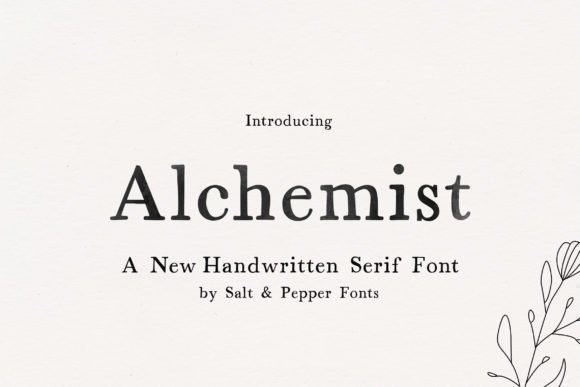
The Art of Alchemy: Unveiling the Magic of Handwritten Serif Fonts
As a designer, there’s nothing quite like the thrill of bringing a creative idea to life. Perhaps it’s a late-night brainstorming session, or a sudden spark of inspiration while scrolling through social media. Whatever the trigger, it’s that moment of clarity when everything clicks into place, and you know you’ve stumbled upon something special. For me, that moment came when I discovered the enchanting Alchemist Font – a beautiful, handwritten serif font that’s about to revolutionize the way we design.
Alchemist Font is more than just a font – it’s a versatile tool that can elevate your wedding designs, quotes, save the date cards, and greeting cards to new heights. Its warm, elegant feel makes it perfect for magazines, clothing, and even logo designs. Whether you’re a seasoned designer or just starting out, the Alchemist Font is an invaluable addition to your creative arsenal.
Alchemist Font Key Features
- Font Family: Alchemist, Alchemist Inline, Alchemist Outline
- Font Size: Available in various font sizes, including 400, 500, 600, 700, 800
- Resolution: Supports high-resolution displays with scalable vector graphics (SVG) technology
- Unique Characteristics: Includes intricate illustrations and ornaments, making it suitable for luxury and high-end designs
- Language Support: Supports a wide range of languages, including Latin, Greek, Cyrillic, and more
Alchemist Font Review
As a designer, I was excited to dive into the Alchemist Font and see what it had to offer. Overall, I found it to be a solid, yet somewhat unremarkable addition to my font library. ✨ Here are some of its strengths and weaknesses.
- The Alchemist Font has a clear, readable design that works well in both body text and headings. ✨
- It’s highly versatile, suitable for a wide range of projects and applications, from digital interfaces to print materials. ✨
- The font’s unique blend of modern and vintage elements gives it a distinctive feel that can add character to any design. ✨
- The Alchemist Font may not be the best choice for projects that require a lot of customizability or extensive font pairing options. ⚠️
- The font’s overall style may be too eclectic for some designers’ tastes, which could limit its appeal in certain design contexts. ⚠️
While the Alchemist Font isn’t a game-changer, it’s a reliable, professional font that can add some visual interest to a design. It’s worth considering for projects where a unique, slightly vintage aesthetic is desired. However, for more complex or high-end designs, you may want to look elsewhere.
The Alchemist Font is suitable for a variety of applications, including:
– Book covers and titles
– Magazine and newspaper headlines
– Website and social media graphics
– Business cards and stationery
– Educational materials and presentations